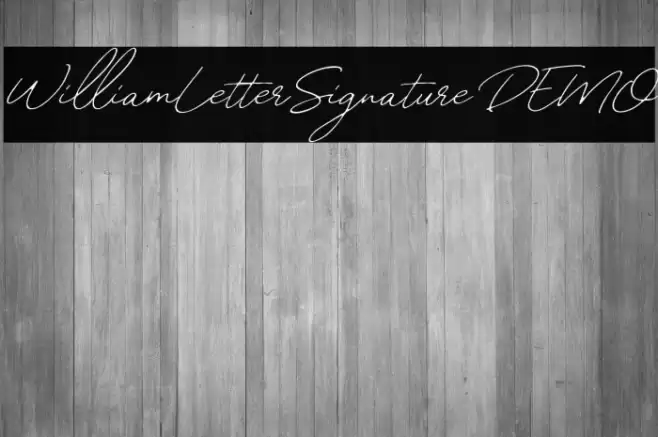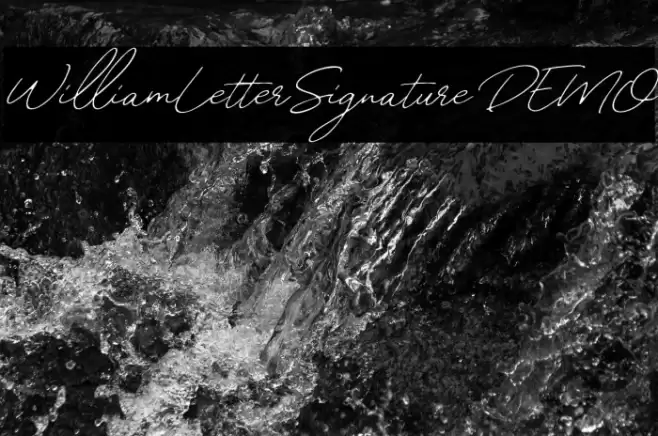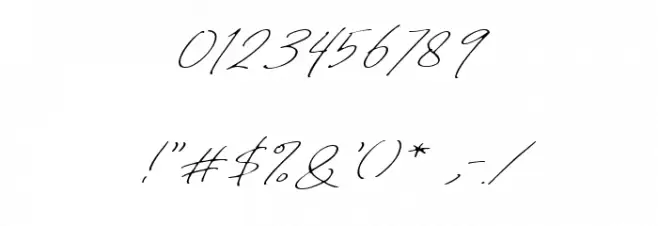
WilliamLetterSignatureDEMO Font
WilliamLetterSignatureDEMO Description
This elegant script font features a fluid and graceful style, reminiscent of a personal handwritten signature. The characters are connected with smooth, flowing lines, giving it a sophisticated and artistic appearance. The uppercase letters are slightly more embellished, while the lowercase letters maintain a consistent and harmonious flow. The numerals and special characters are crafted with the same attention to detail, ensuring a cohesive look across all elements. This font exudes a sense of luxury and refinement, making it ideal for projects that require a touch of elegance.
A graceful, handwritten script font with a luxurious and artistic style from Regular fonts.
- Proposed Projects: Ideal for wedding invitations, personal branding, elegant stationery, and luxury product packaging.
- Overall Style: Elegant
- Use Case: Logos, Invitations, Personal Branding